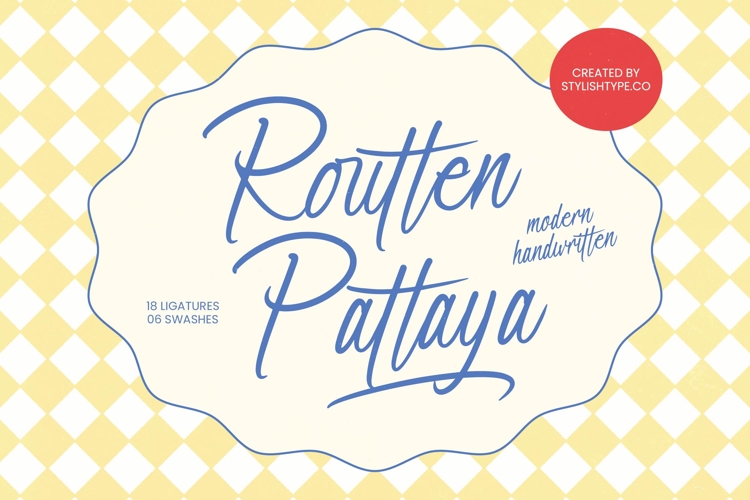
Routten Pattaya - Modern Handwritten
Elevate your creative vision with a typeface that embodies effortless sophistication and organic charm. Routten Pattaya - Modern Handwritten is a masterclass in contemporary script design, blending natural fluidity with a polished, professional finish. Its authentic stroke movements and graceful letterforms provide a genuine hand-drawn feel that resonates with audiences seeking intimacy and elegance. By integrating a refined monolinear aesthetic, this font captures the essence of modern calligraphy, making it a premier choice for designers looking to inject personality into their visual identity projects.
Discover the ultimate solution for high-impact visual storytelling across diverse media. This typeface is an impeccable fit for luxury branding, chic packaging, and editorial design. Whether you are crafting high-end wedding invitations, upscale lifestyle logos, or social media graphics, Routten Pattaya - Modern Handwritten delivers an unmatched level of style. It is particularly perfect for fashion labels and beauty products that require a touch of human warmth without sacrificing a clean, minimal look. The inclusion of special ligatures and artistic swashes ensures that every word looks custom-made and expertly tailored.